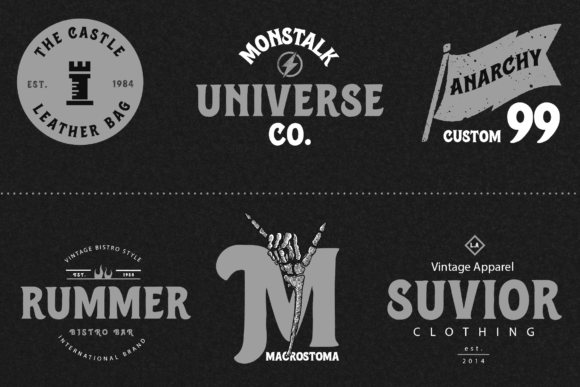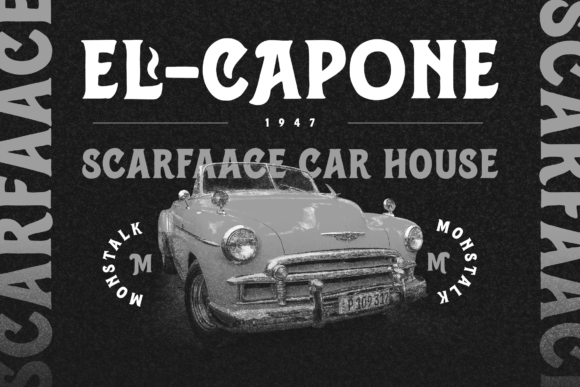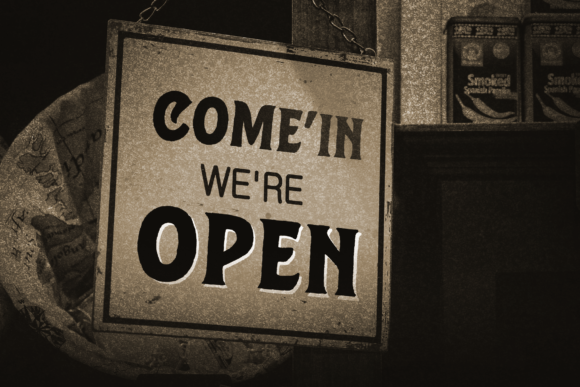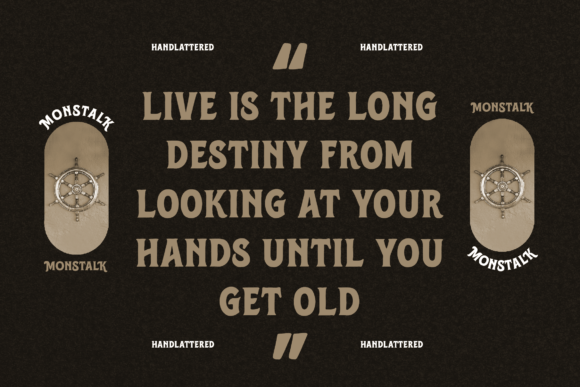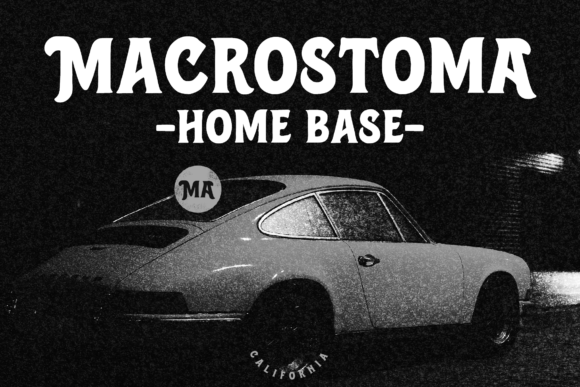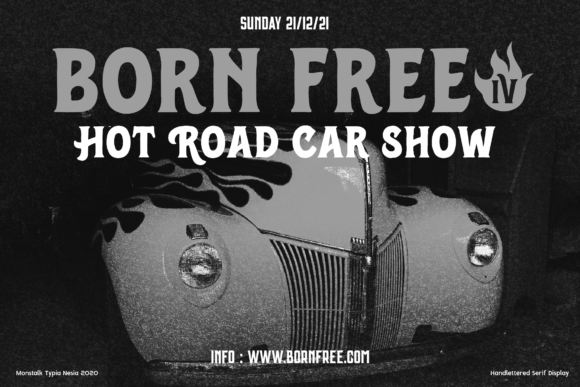
Introduction to Monstalk Font
Monstalk is a bold, vintage styled display font.
Thick lettered and unique, this font will make each of your designs look great .